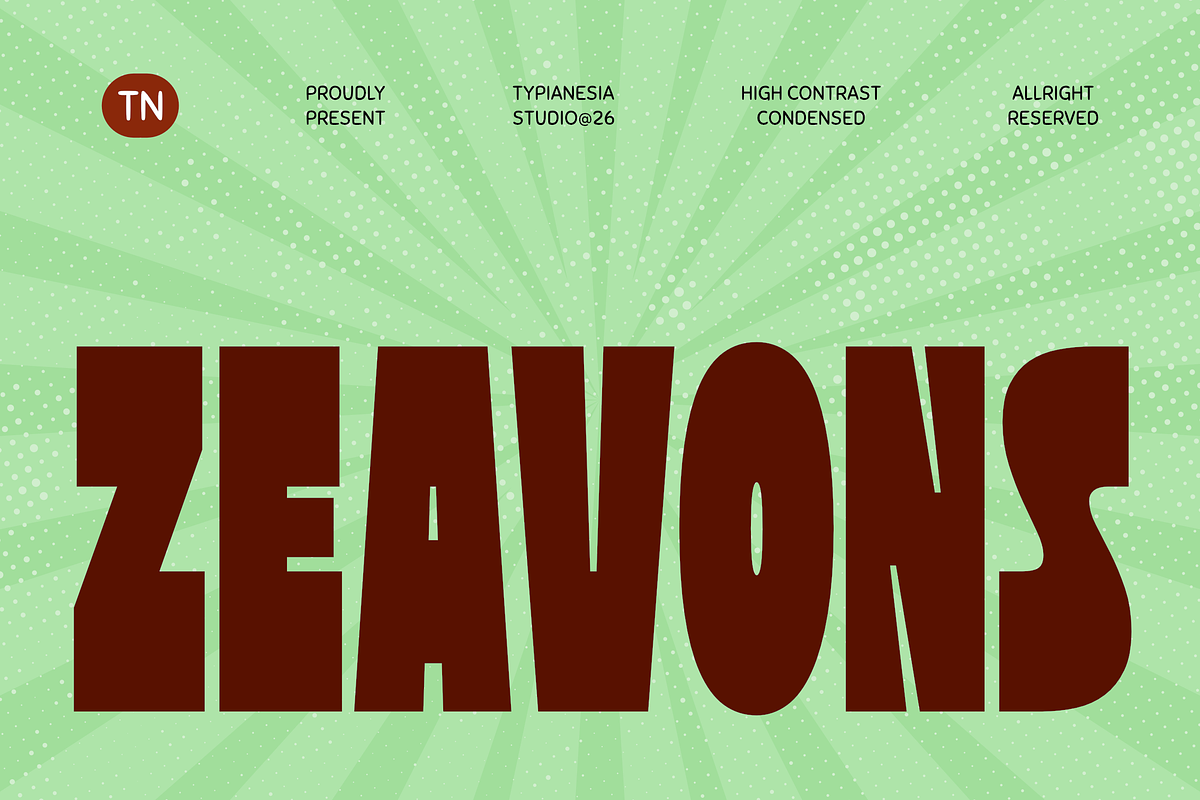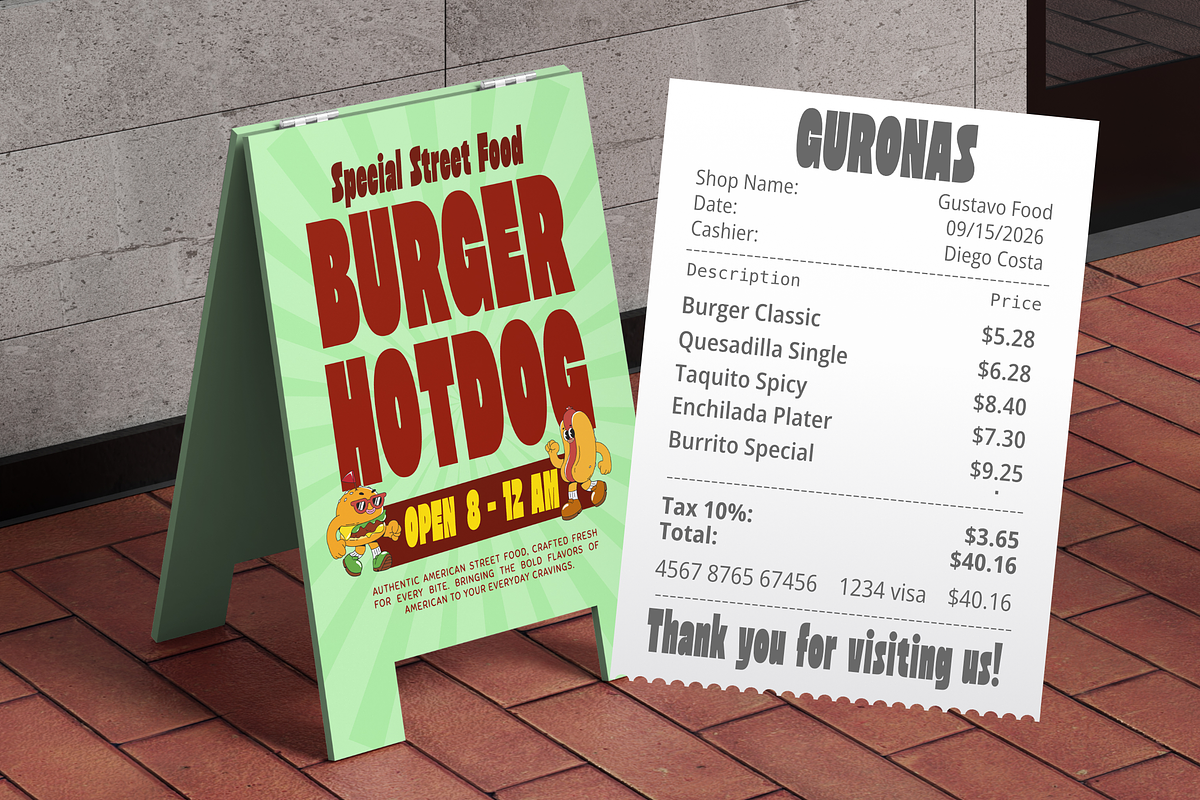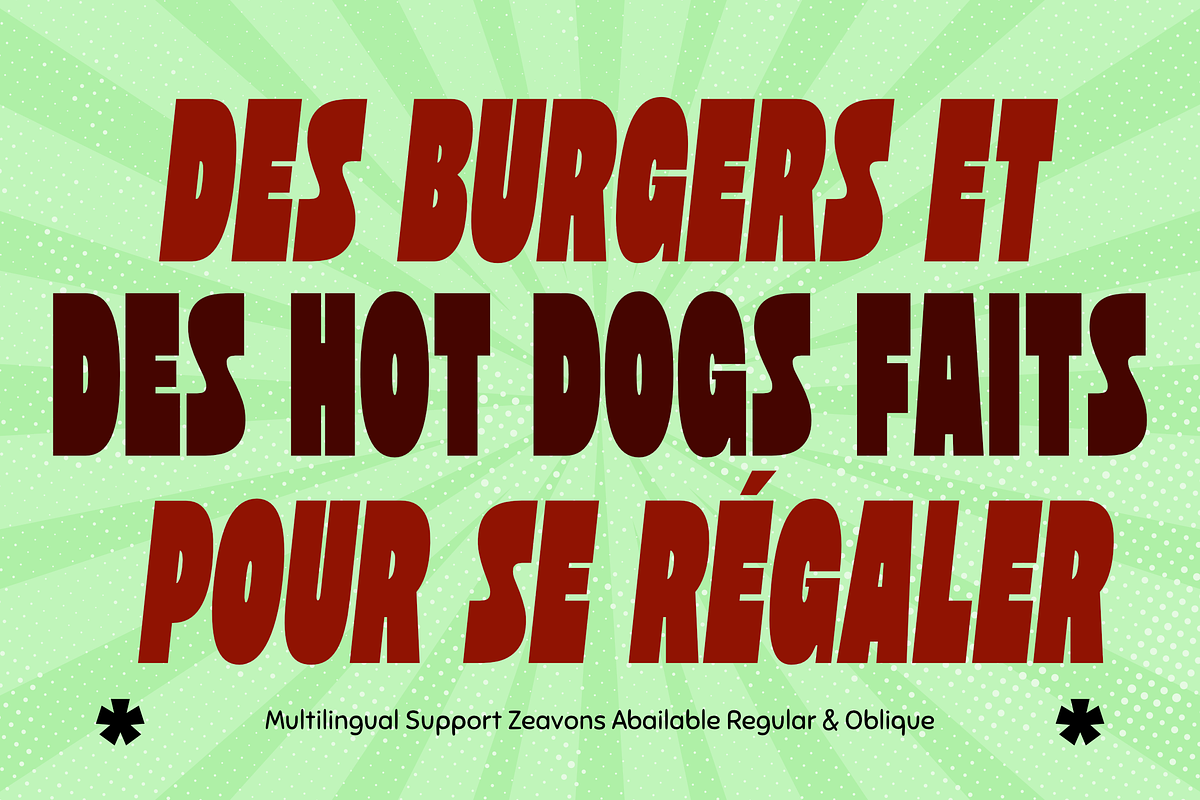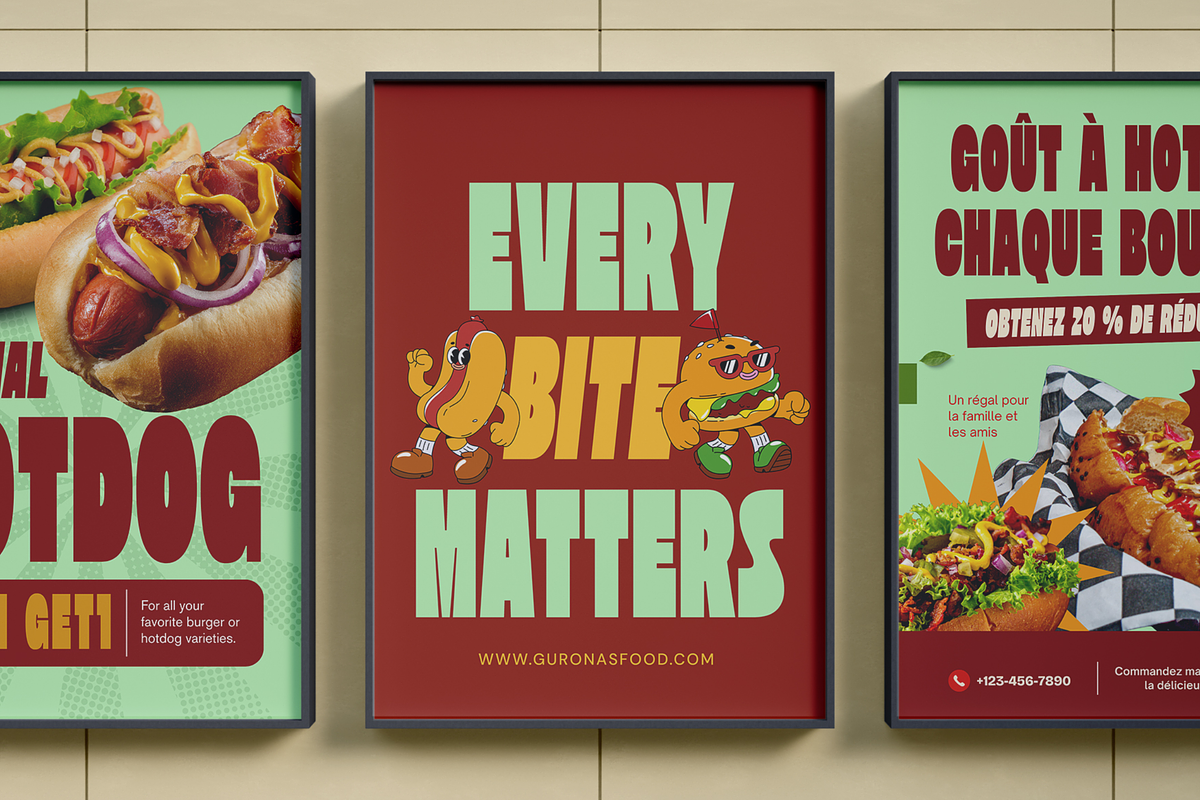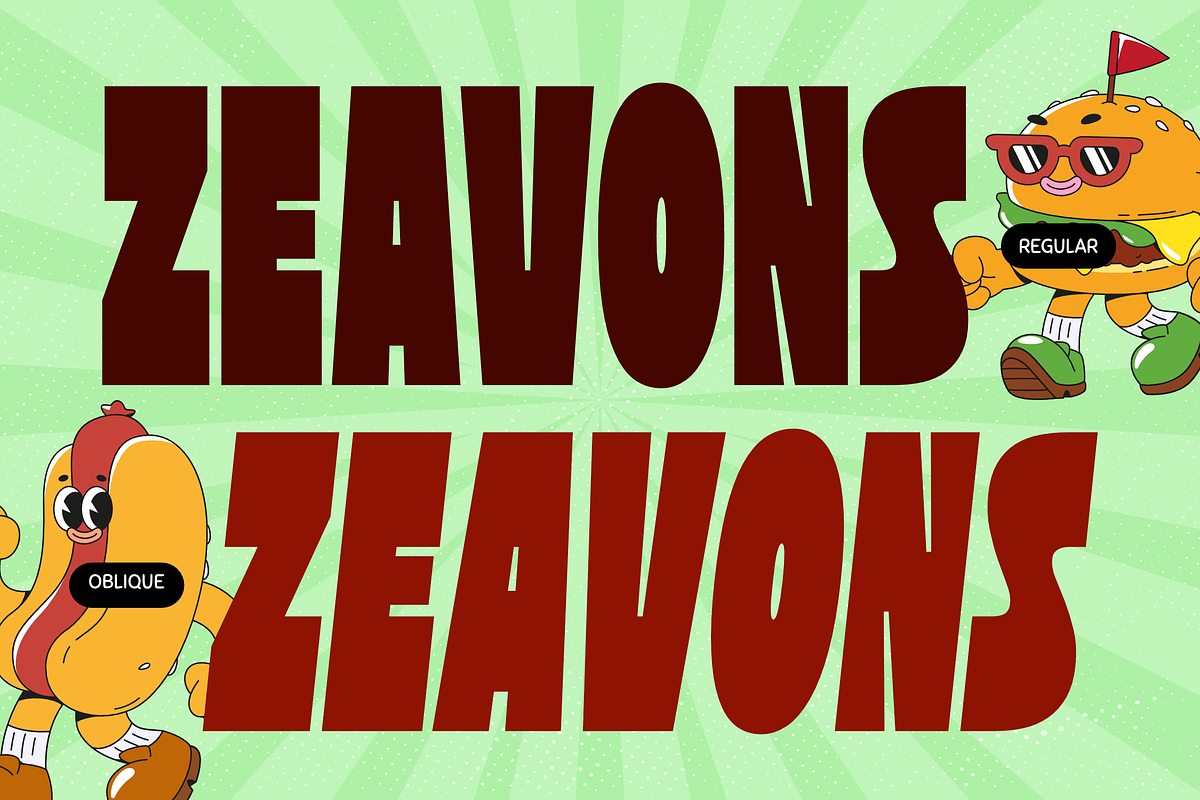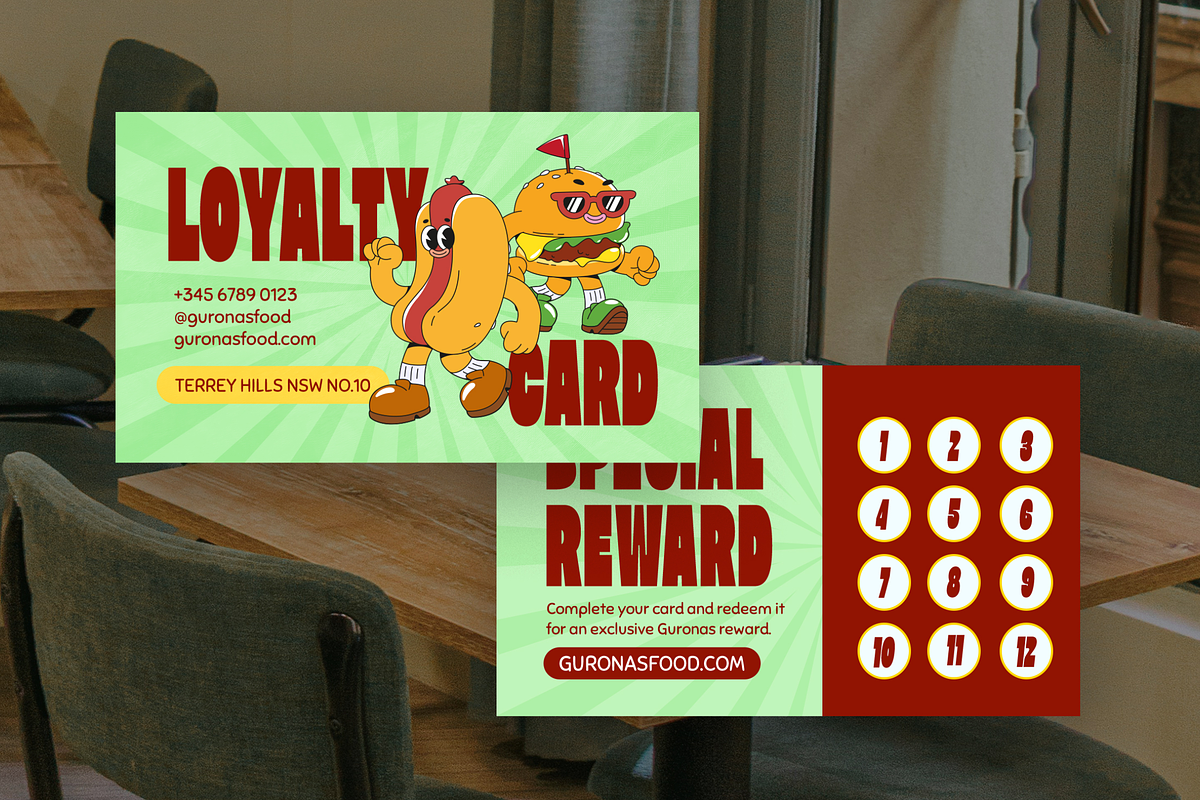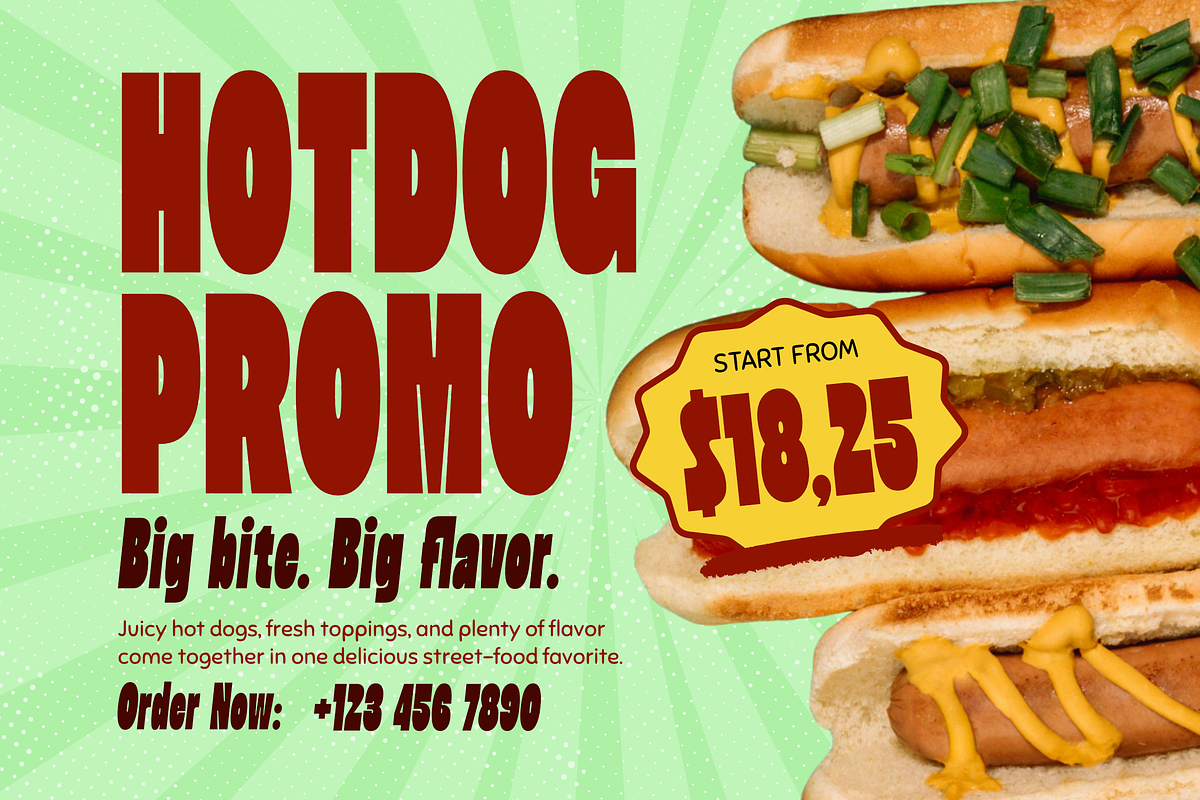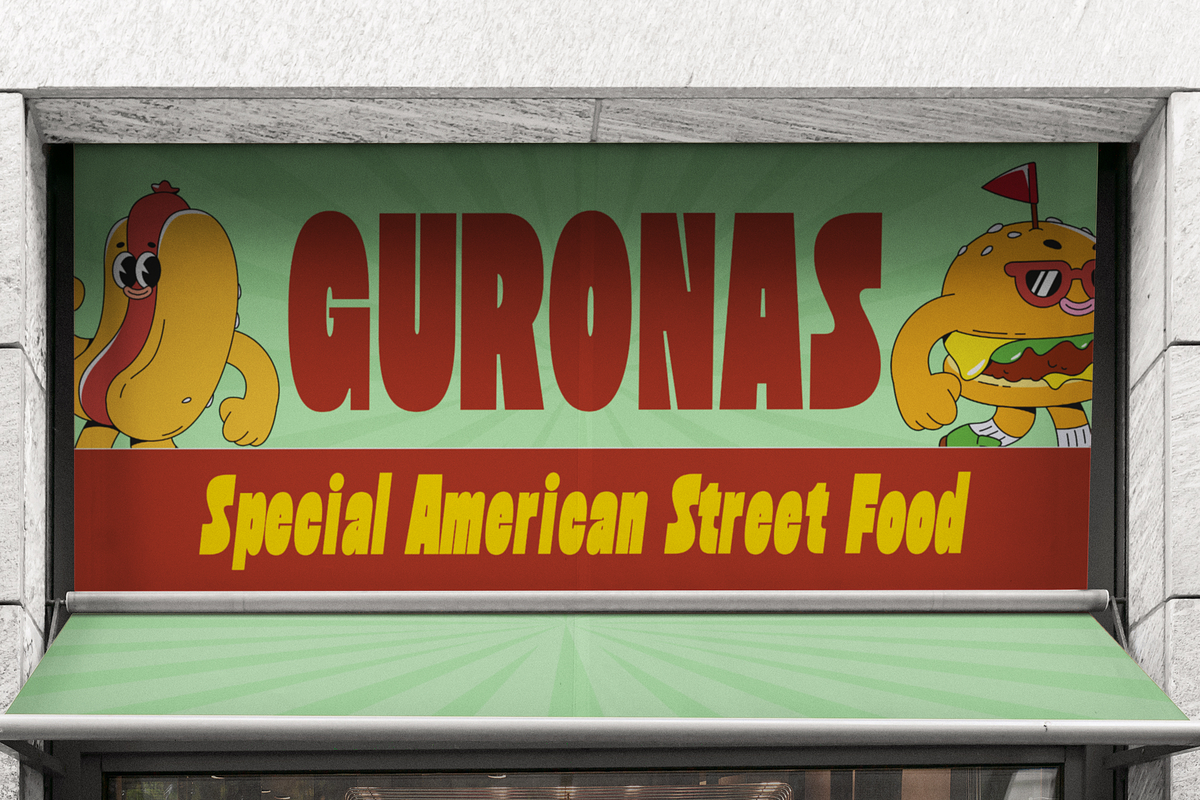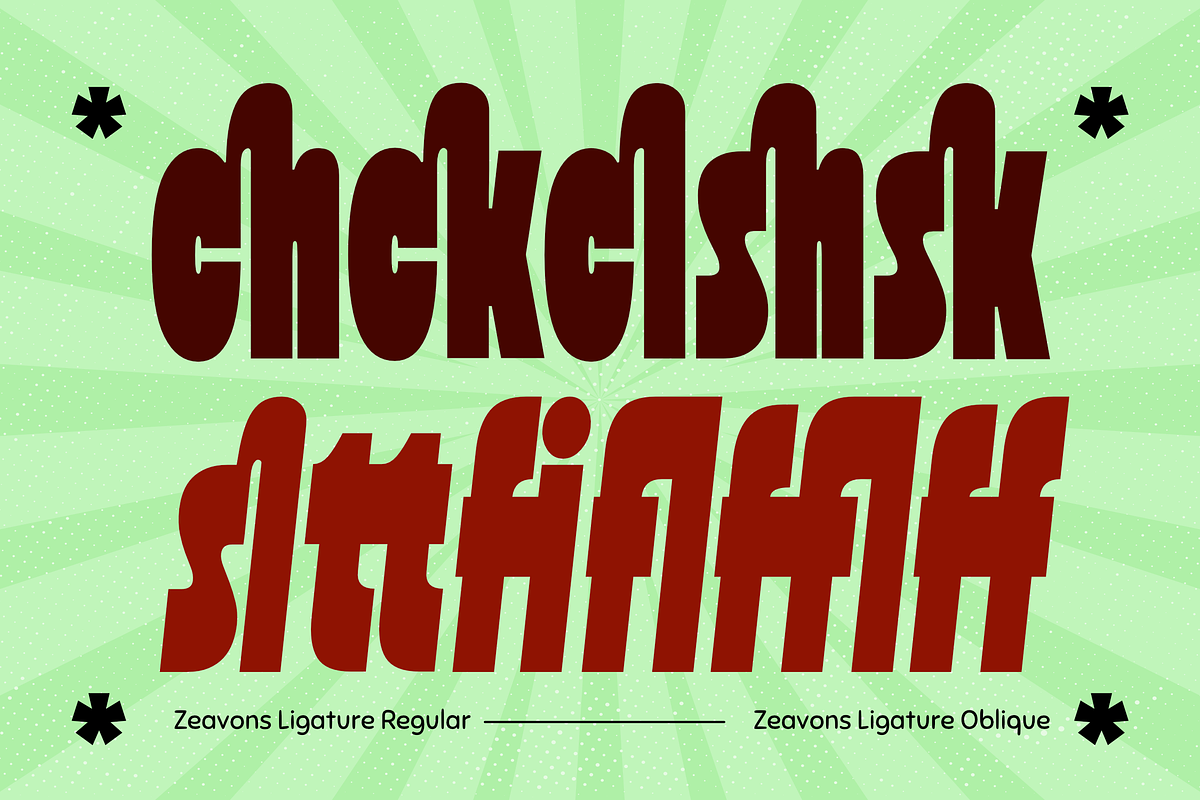
Zeavons - Condensed Retro Sans Font
Zeavons is an expressive, high-contrast condensed display typeface crafted for retro comic art, pop-culture merch, and vibrant poster designs seeking a loud, nostalgic impact. Designed to evoke retro comic energy and bold pop-art graphics, it delivers an unforgettable visual impact that stands out across print, apparel, and digital media.
Perfect for comic covers, retro poster design, retro graphics, food packaging, and attention-grabbing headlines. It features unique blocky proportions and striking contrast, making it versatile and easy to use across a wide range of design needs. Bring energetic, retro pop flair and undeniable character to your next creative release with Zeavons today!